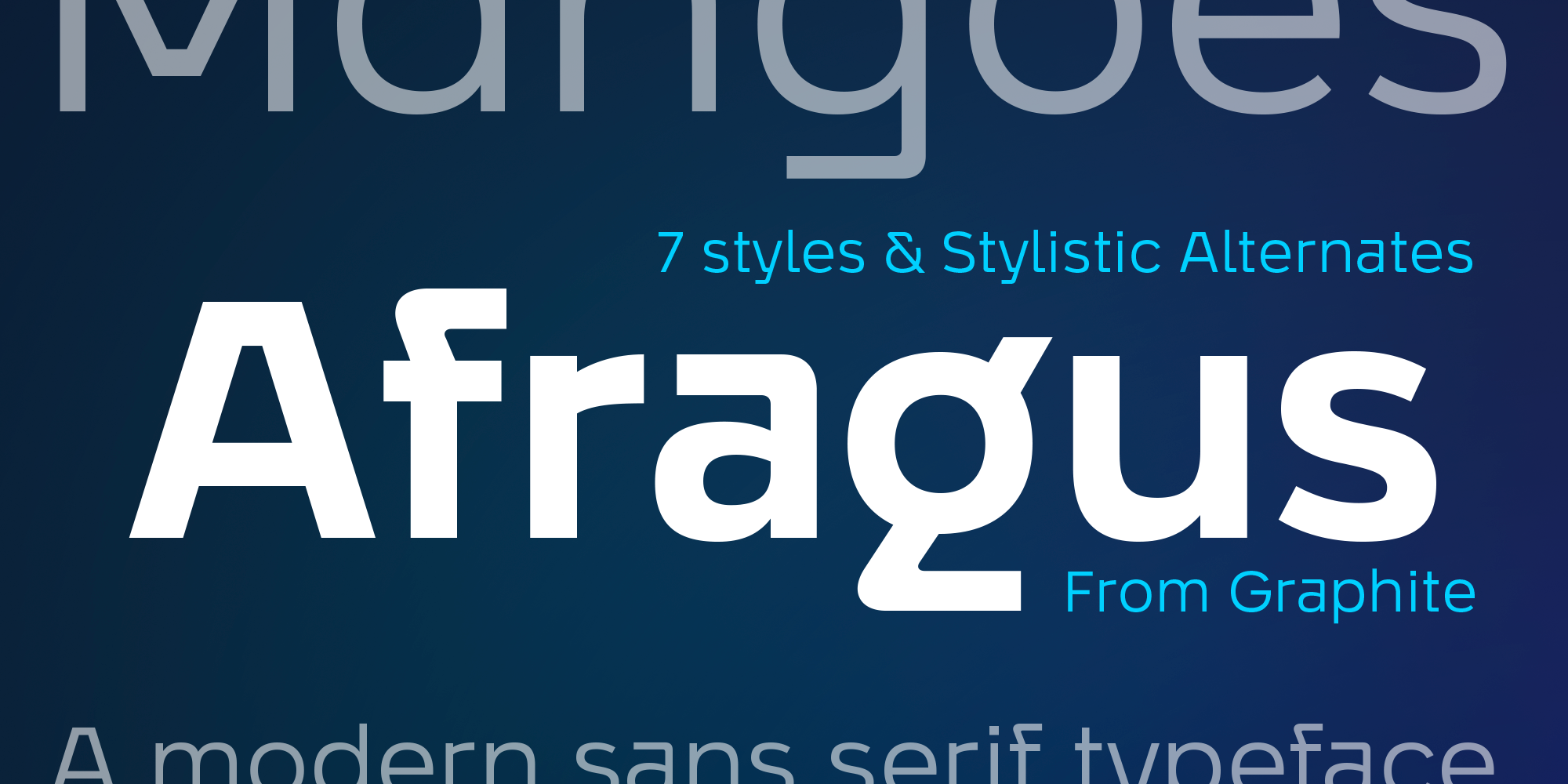
The Afragus Font is ideal for branding, logos, advertising, signage, editorial layouts, and display designs.
This font is exciting because its angular quirkiness and clean geometric structure create a modern, versatile sans serif with a distinctive, dynamic edge.
The Afragus Font family includes seven weights: Thin, Light, Regular, Medium, SemiBold, Bold, and ExtraBold, offering flexibility for diverse applications.
Unlock the potential of your designs with the Afragus Font Free Download, a modern sans serif typeface designed by Deepak Dogra and published by Graphite. Perfect for designers seeking a bold yet clean aesthetic, this font shines in branding, logos, and advertising materials. Its unique angular quirkiness, paired with a robust geometric structure, makes it adaptable for both small text and large-scale displays, ensuring versatility across print and digital media.
The Afragus Font is a standout choice for signage, editorial work, and transit-related projects, thanks to its stylistic alternates that add creative flair. Its seven weights provide options for crafting cohesive visuals, from subtle body text to impactful headlines. Compatible with desktop applications like Adobe Photoshop, Illustrator, and Microsoft Word, it supports a wide range of design needs. The font’s clean design enhances readability while maintaining a modern, professional look, making it ideal for global branding with multilingual support.